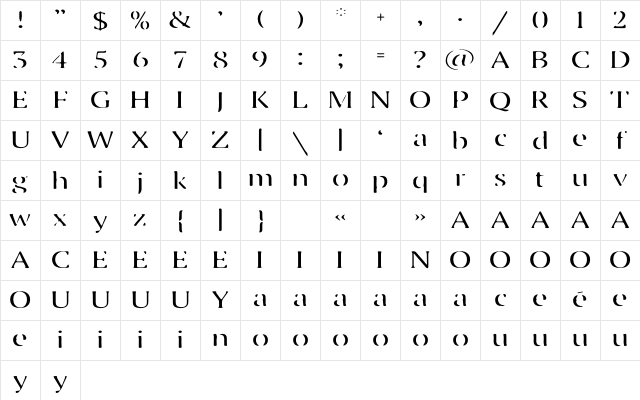
SA Granada Regular
Foundry: Artcoast Studio
Designer: Dmitry Mashkin
Design Context for SA Granada
SA Granada is a composed and adaptable typeface that performs quietly and consistently across a wide range of design contexts.